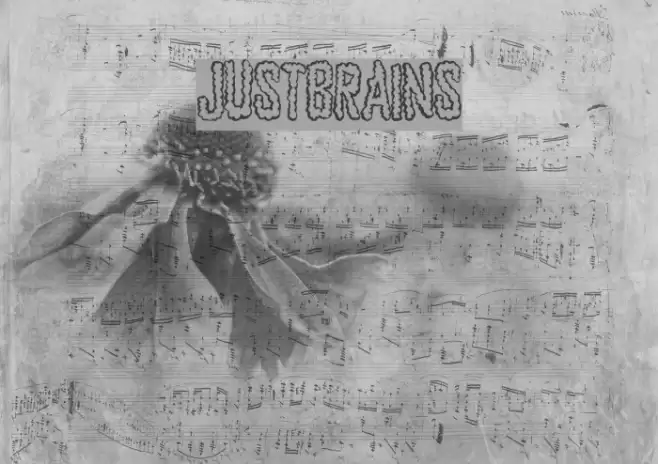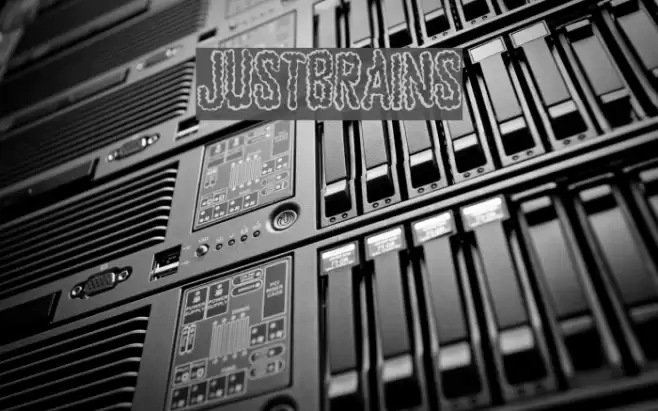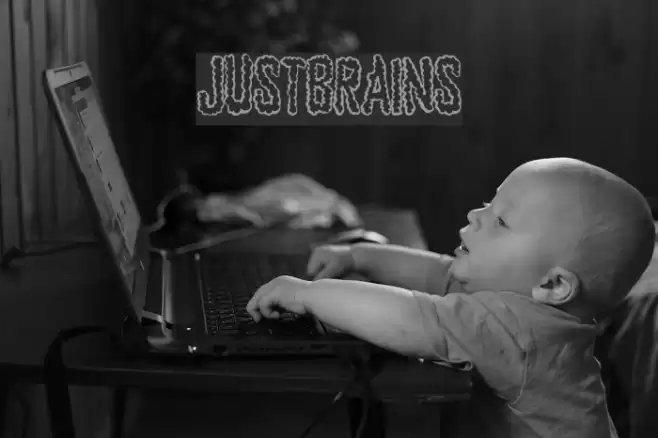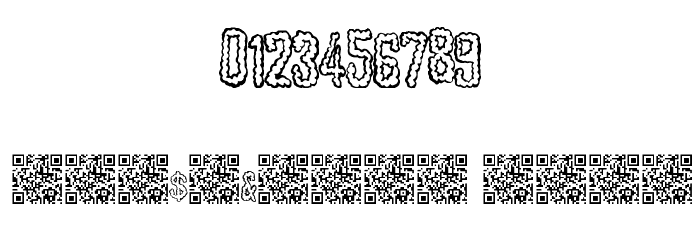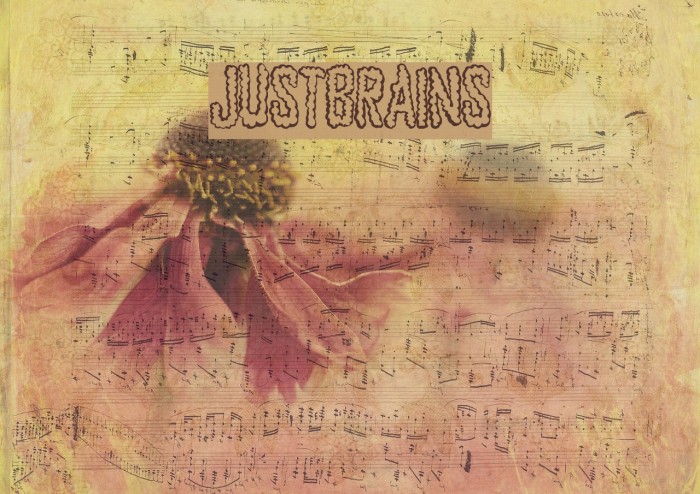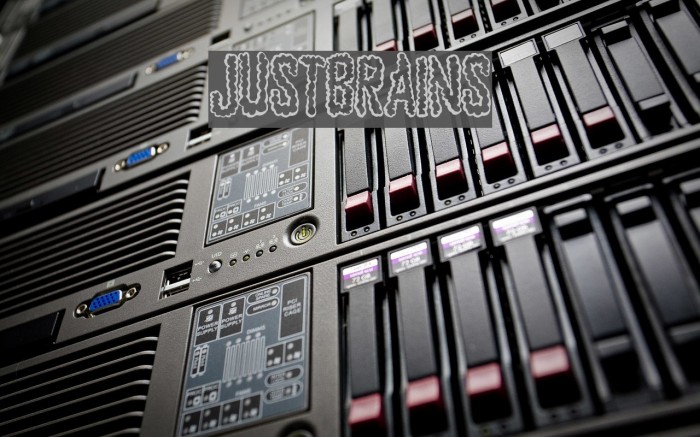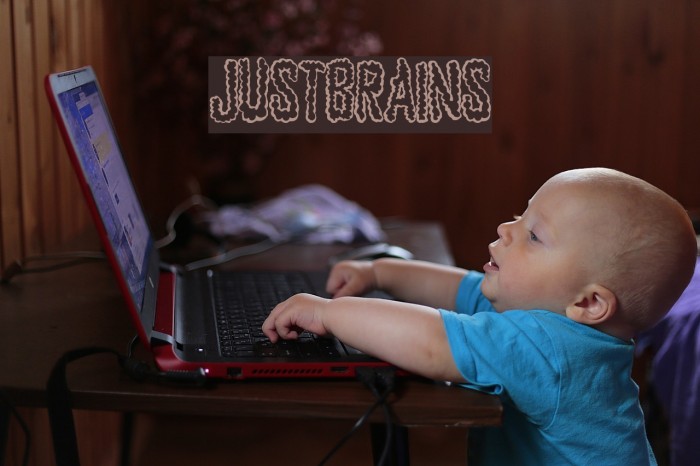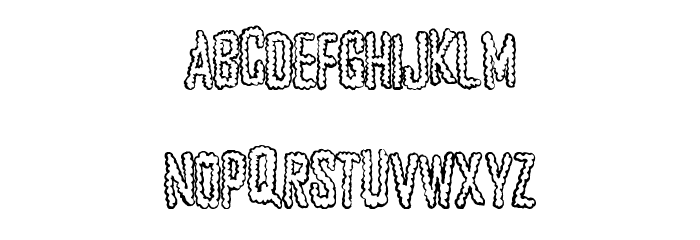
JustBrains Font
JustBrains Description
This font features a unique, decorative style that resembles brain-like textures, giving it a quirky and playful appearance. The characters are bold and have an organic, irregular outline that mimics the convolutions of a brain. This design choice makes the font stand out, ideal for projects that require a fun and unconventional look. The uppercase and lowercase letters maintain consistency in style, while the numbers and special characters follow the same thematic design, ensuring uniformity across all text elements. The font's intricate detailing and bold presence make it suitable for eye-catching headlines or themed designs.
A decorative font with brain-like textures, perfect for playful and unconventional designs from Uncategorized fonts.
- Proposed Projects: Ideal for Halloween-themed projects, educational materials about the brain, or any design needing a quirky and eye-catching font.
- Use Case: Headlines, Logos, Themed designs